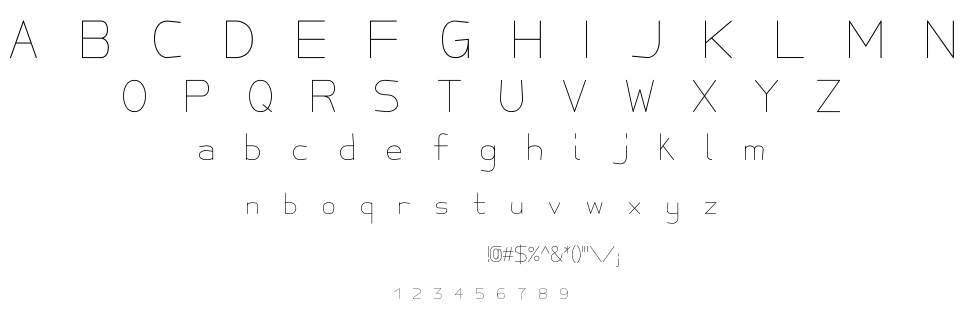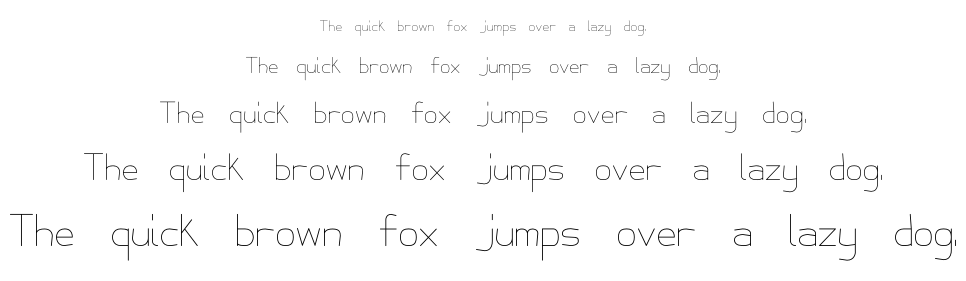
The case was to design a font that could communicate best commerce and market of magazines and advertising. Semi expanded, display, sans and rounded finish can build a similar image